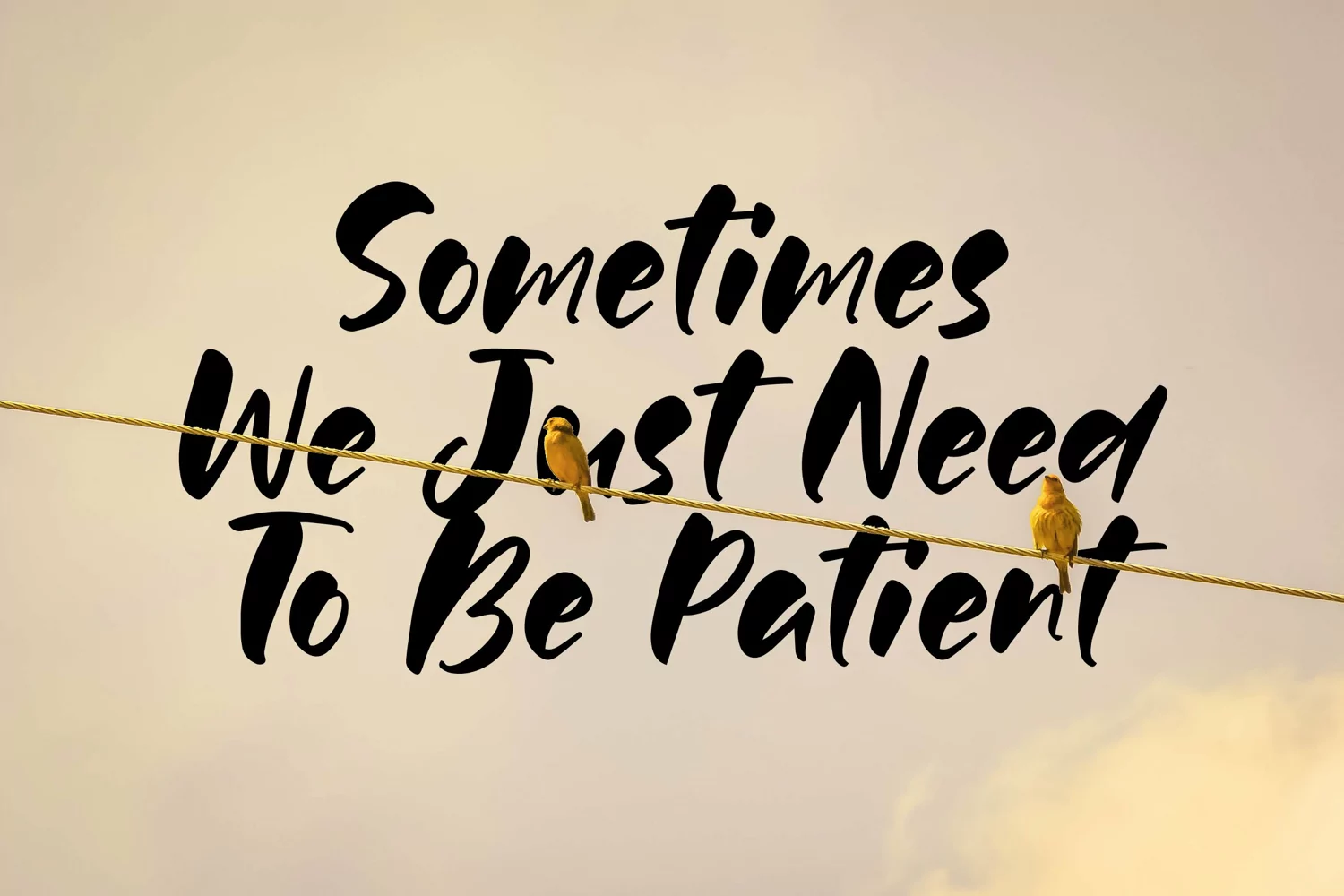
Abelossa - Brushpen Font that contain lowercase, uppercase, symbol, and also support multi language. There’s a lot ligatures in this font. This Font also comes with ligatures, alternates and many more. this font suitable for fashion, branding, catalog and other design what you want.
Abelossa